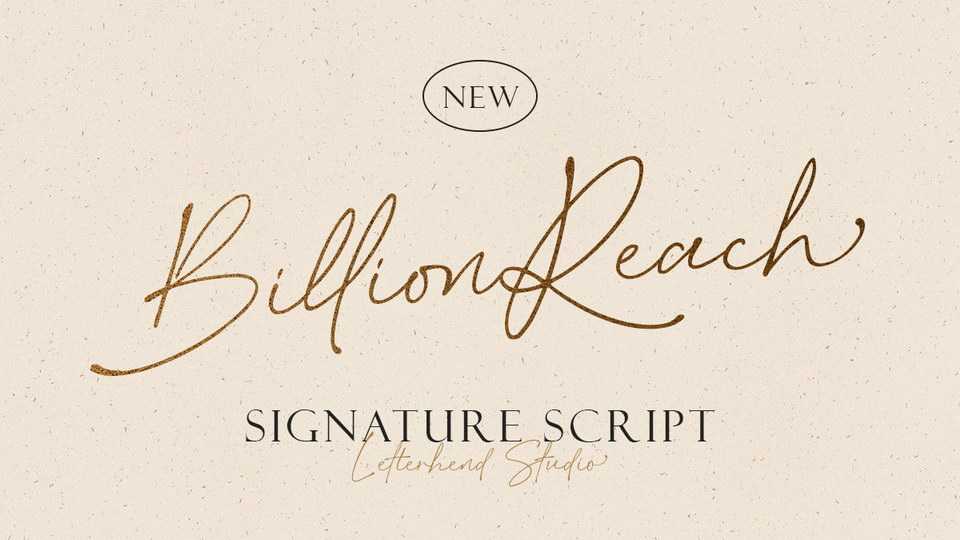
Download Billion Reach font, an elegant signature style handwritten typeface. Billion Reach looks lovely on wedding invitations, quotes, greeting cards, logos, business cards and every other design which needs a handwritten touch.